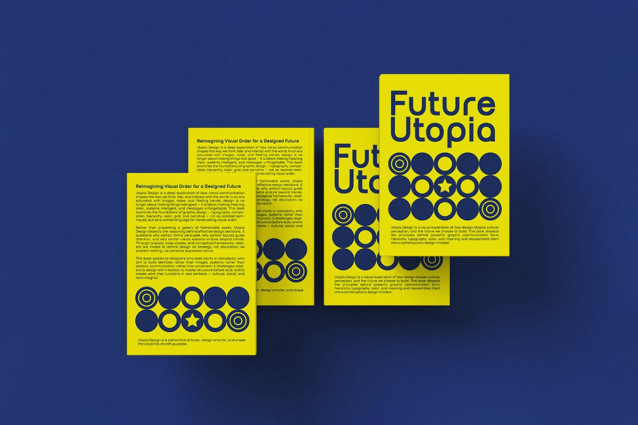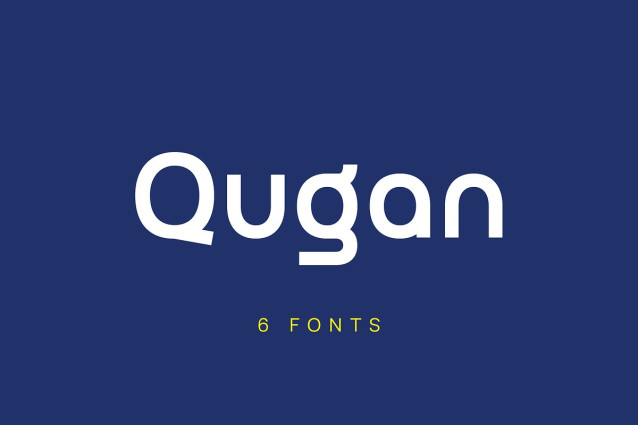
Qugan Font
Qugan Font is a versatile font designed specifically for logos and branding. Each character is carefully crafted to create strong, memorable logos, while the regular version remains comfortable and readable for longer text. You can easily build and use high quality logos with confidence.